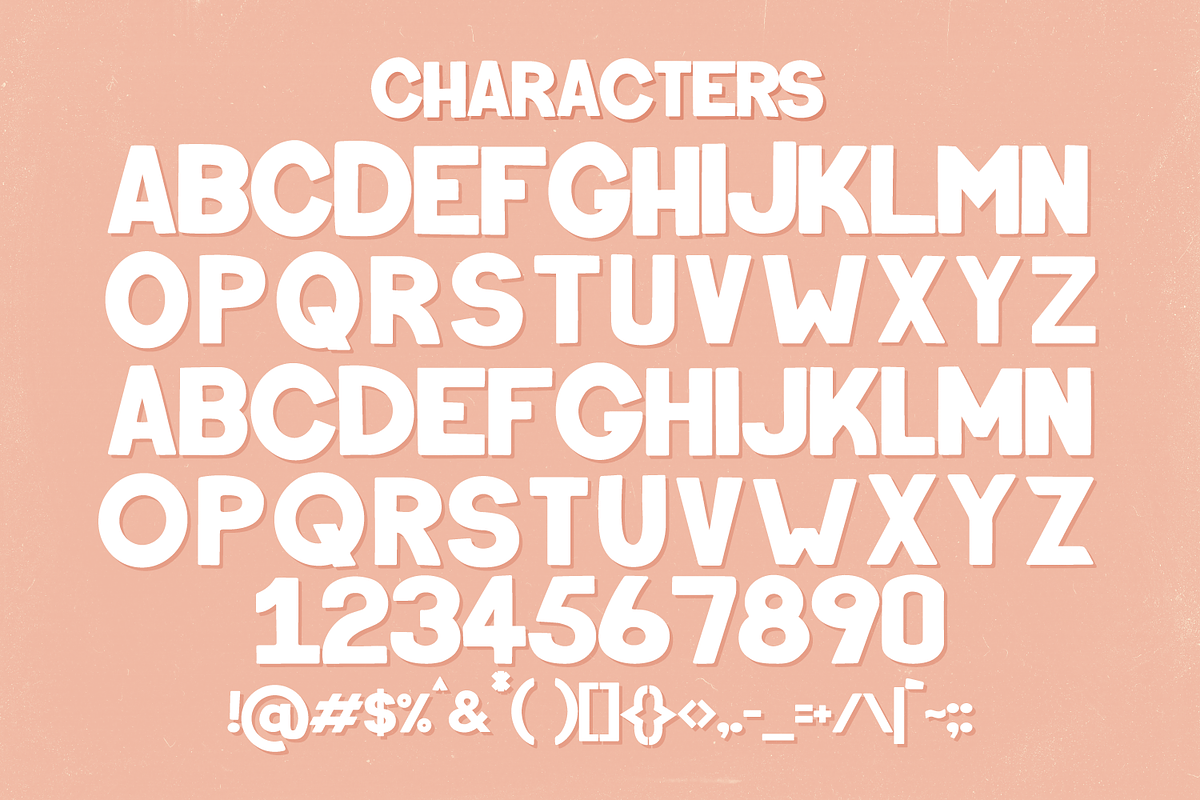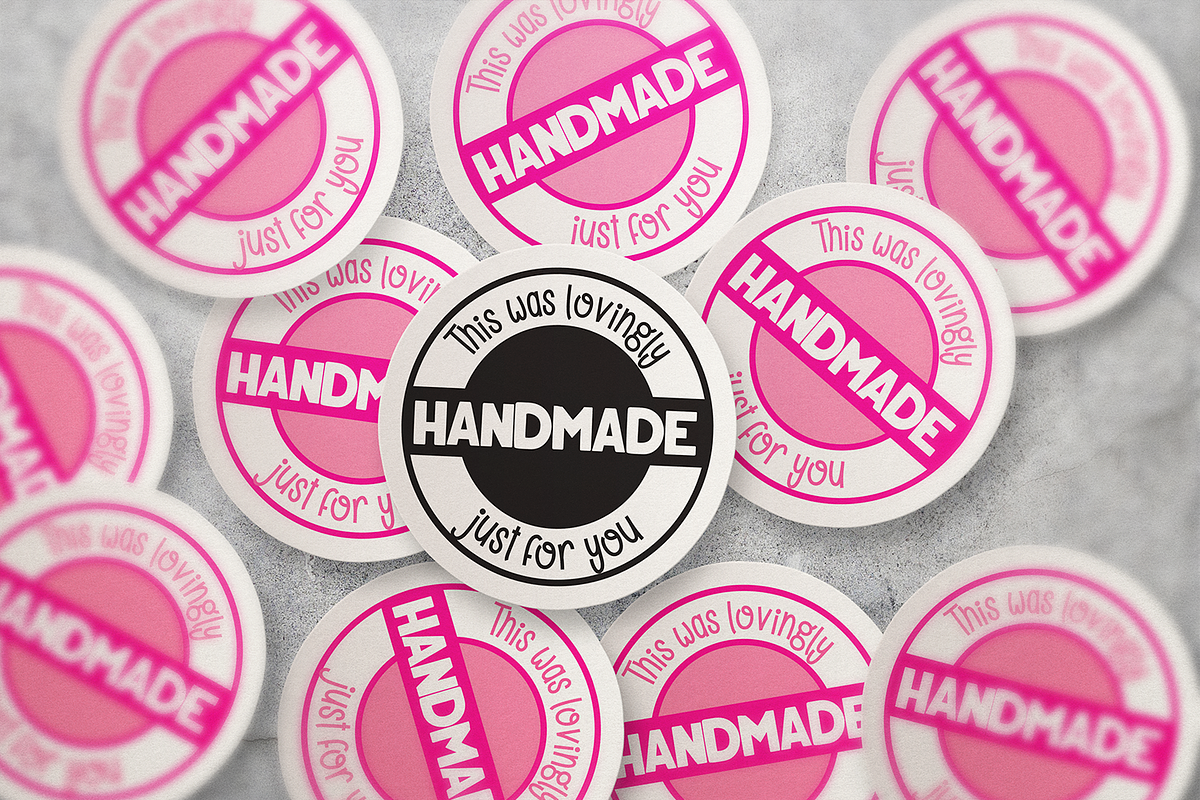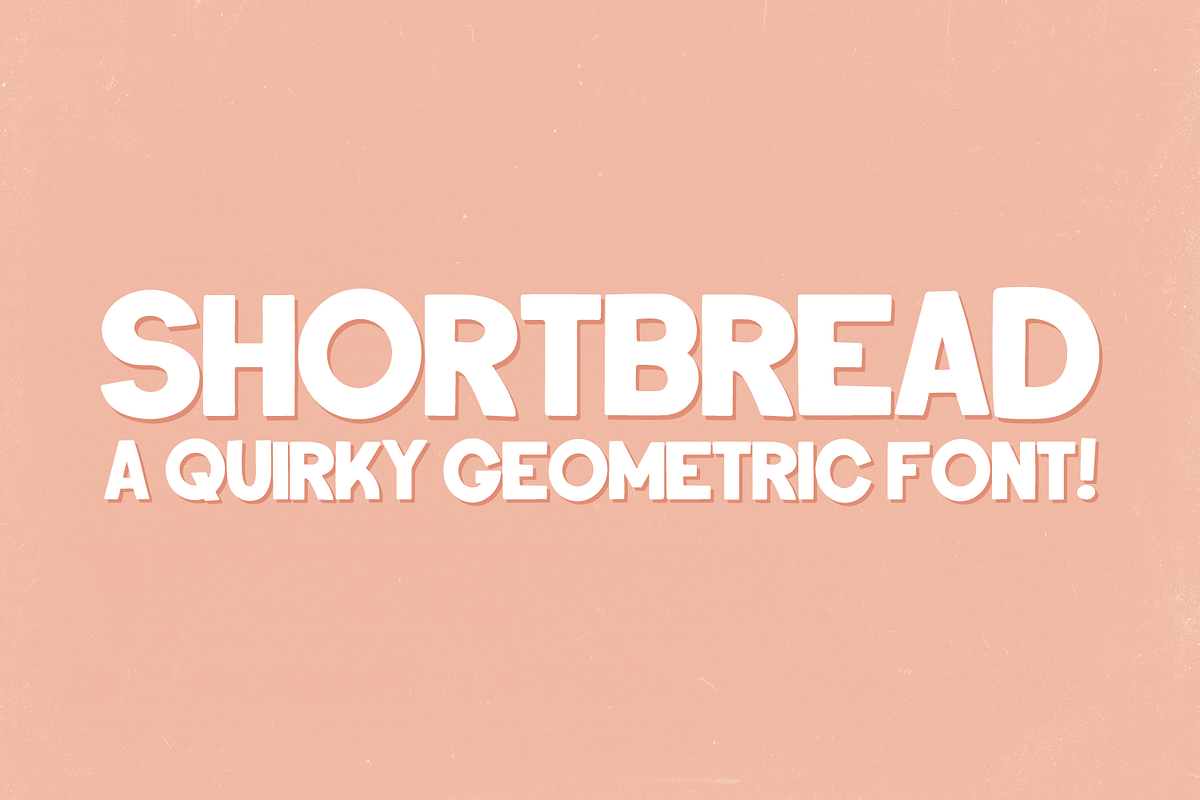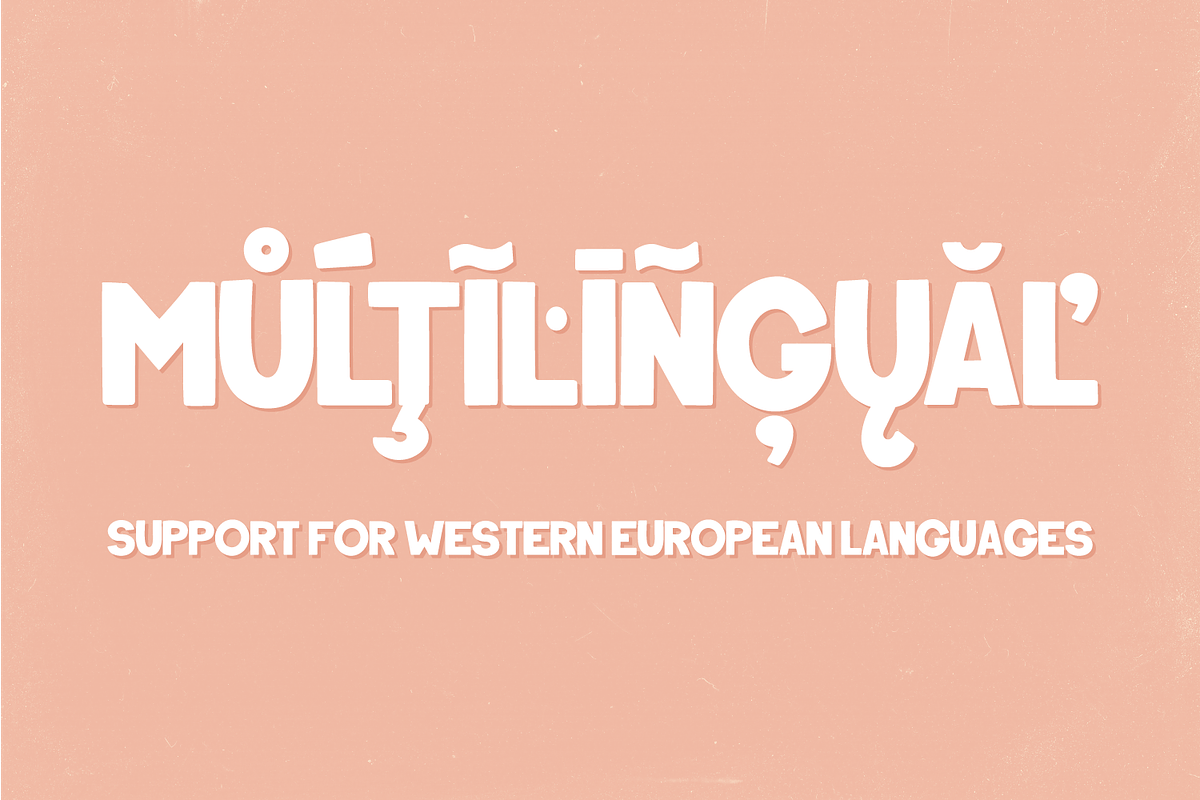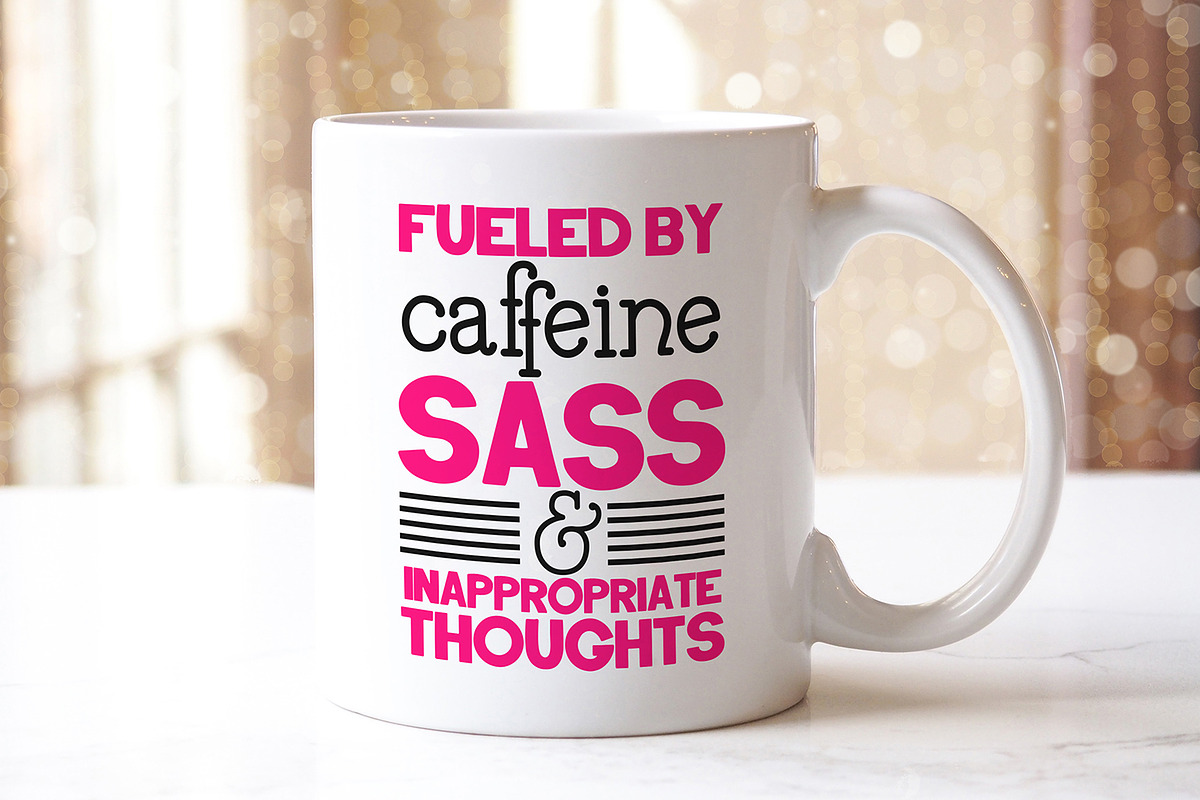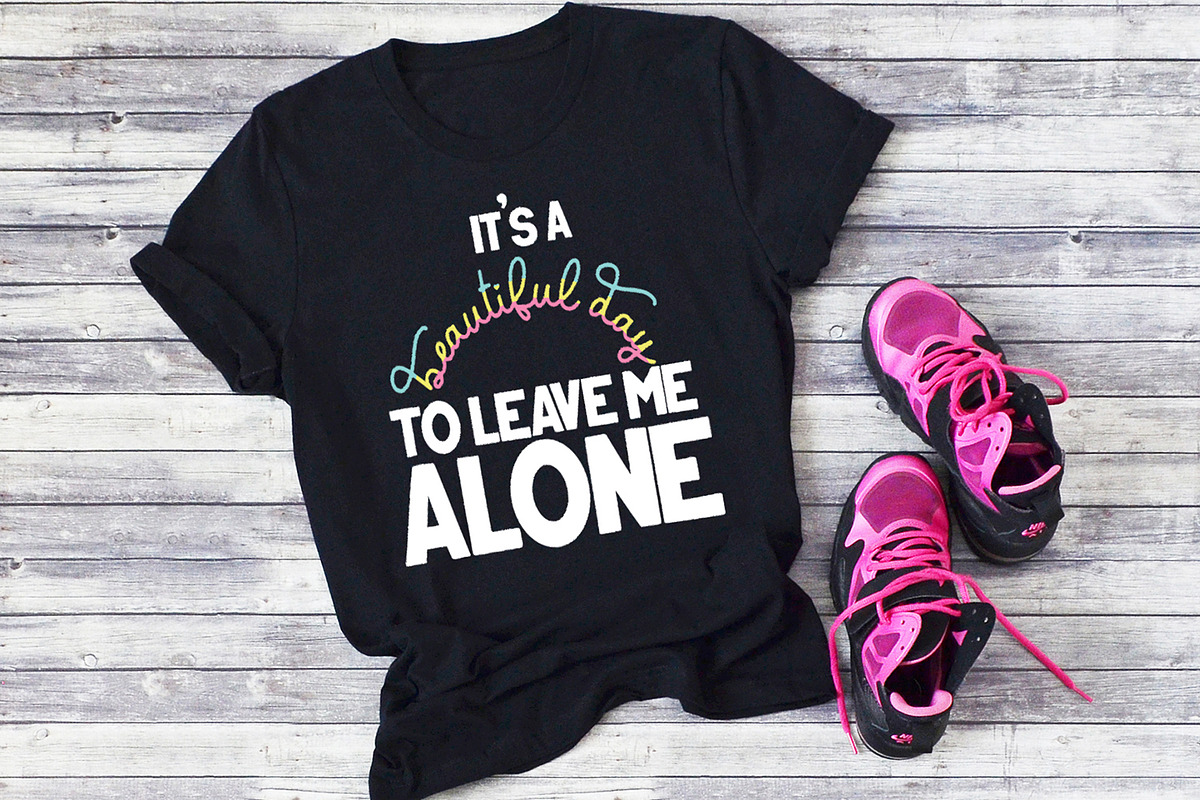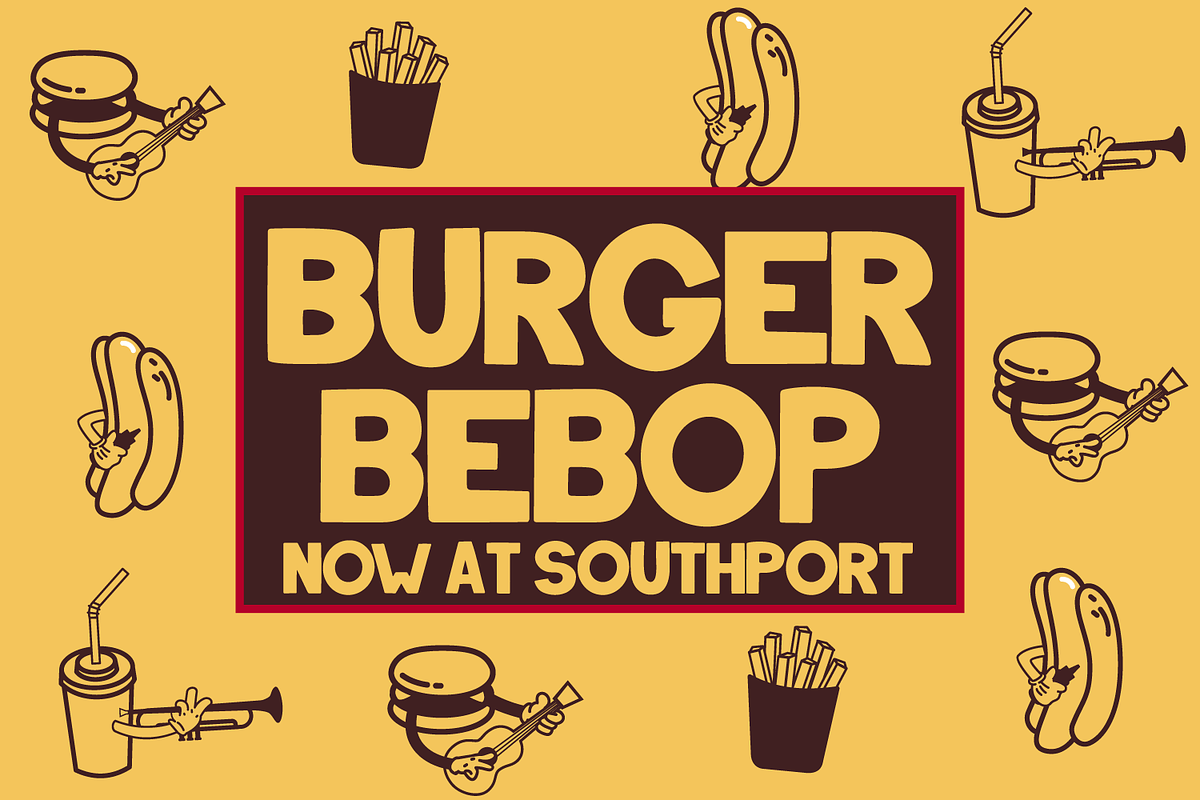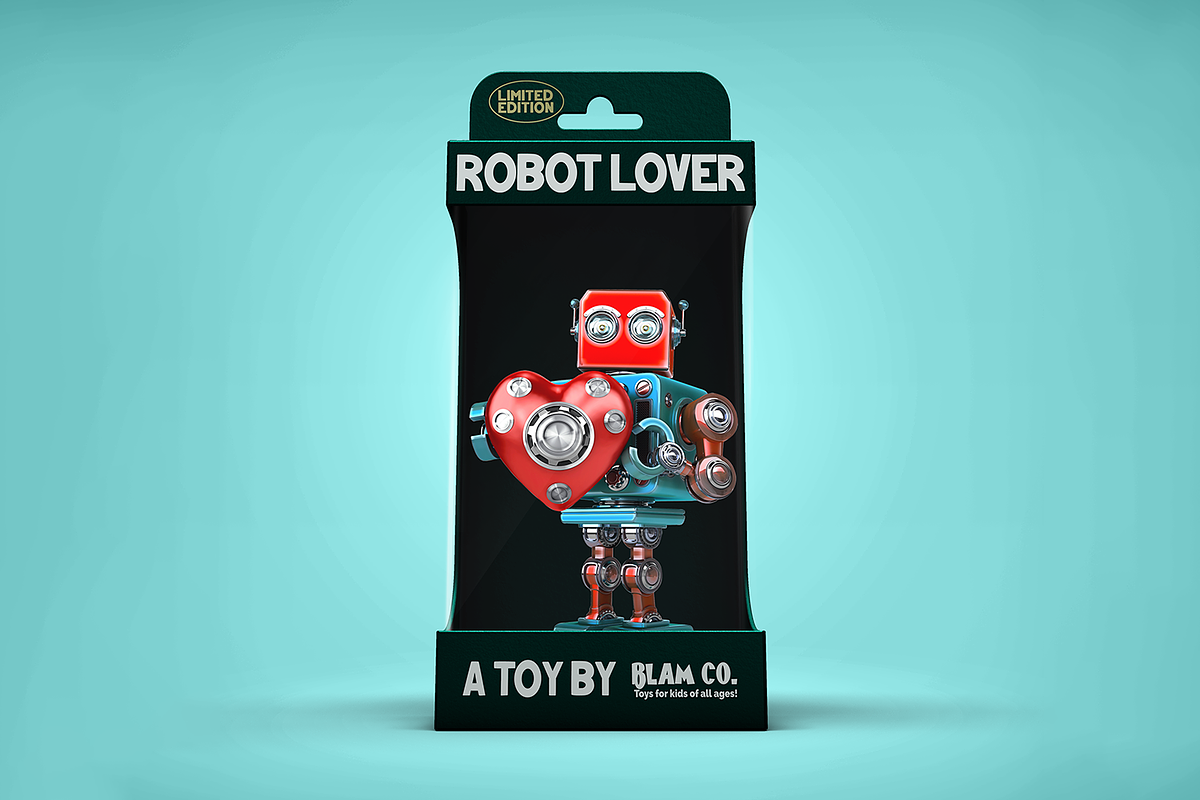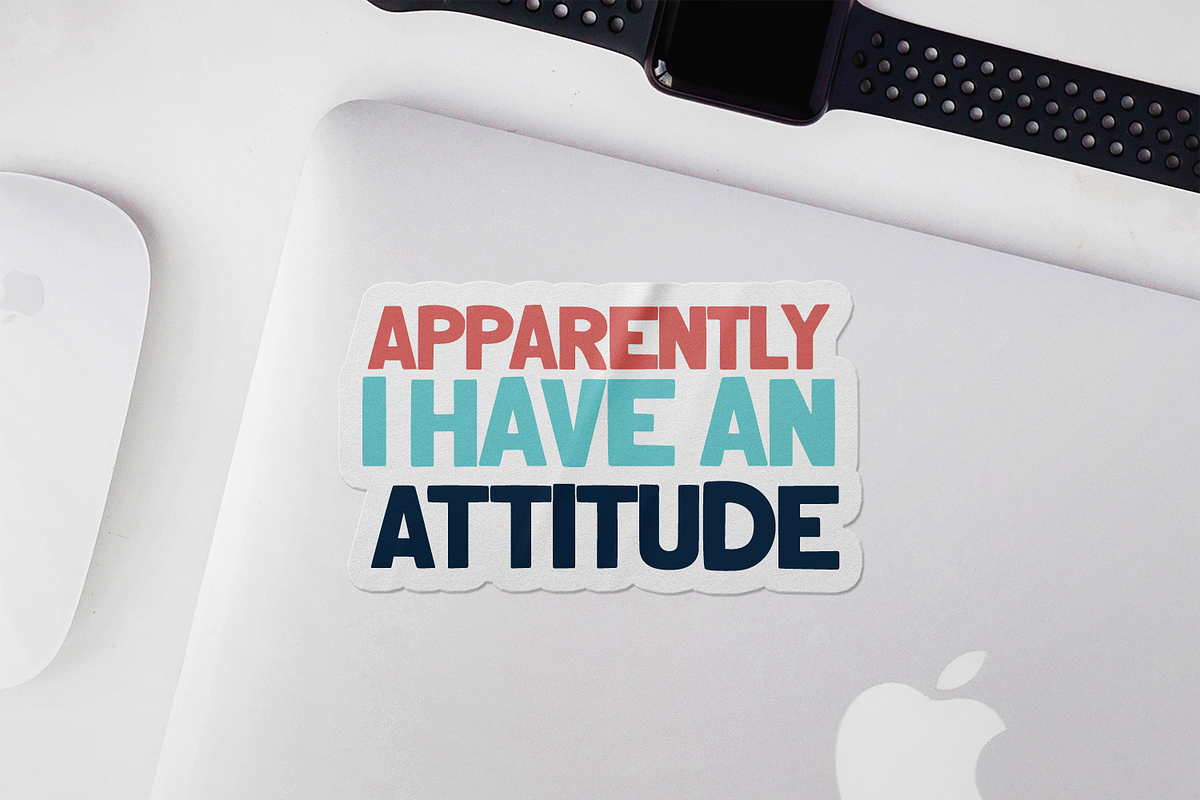
Shortbread - a quirky geometric font
Meet Shortbread, a quirky hand-drawn geometric style font!
This font is perfect for big eye-catching important headlines with a side of sass. It's fun with handwritten quirks but still very much to the point.
Use Shortbread on its own to gleefully exclaim your message, or pair it with a script to salt some of that sweetness.
This font is also great for t-shirt designs, branding, stickers, and so more! It is a versatile all-rounder that will fit snuggly in your arsenal.
Shortbread is an uppercase font including 212 glyphs in total: Basic Latin, Latin 1 Supplement, Latin Extended A, and various diacritics and symbols.